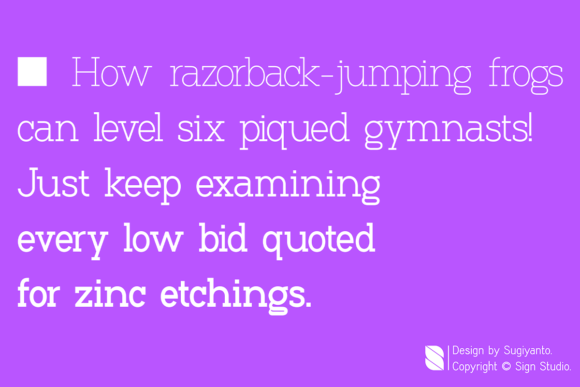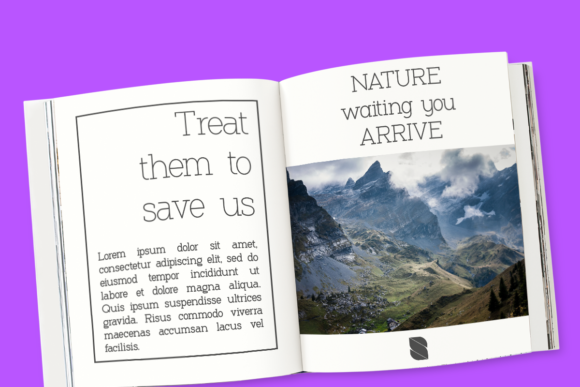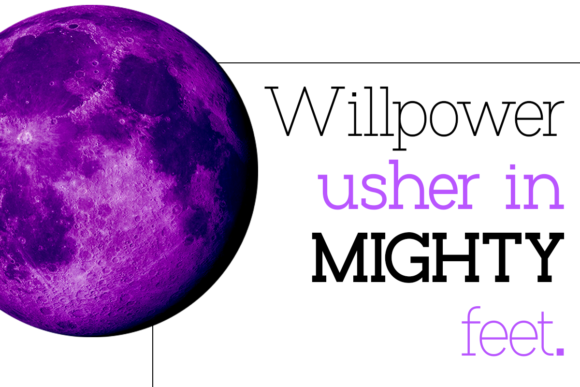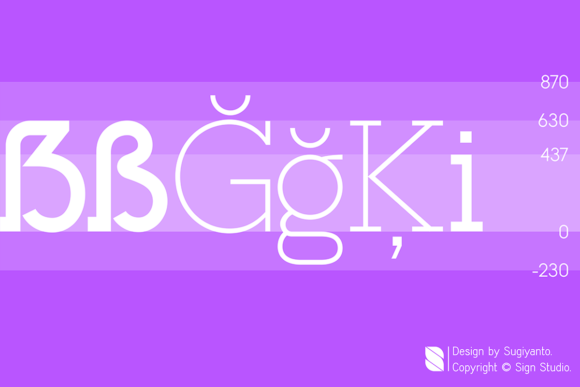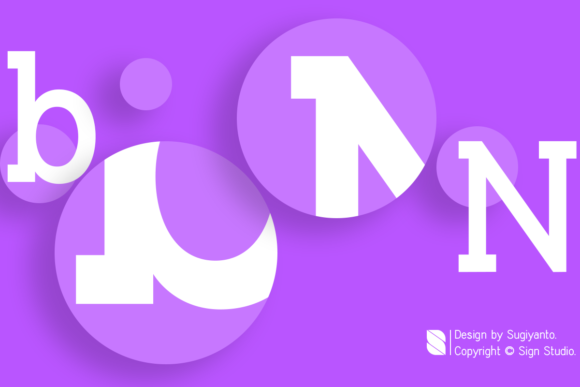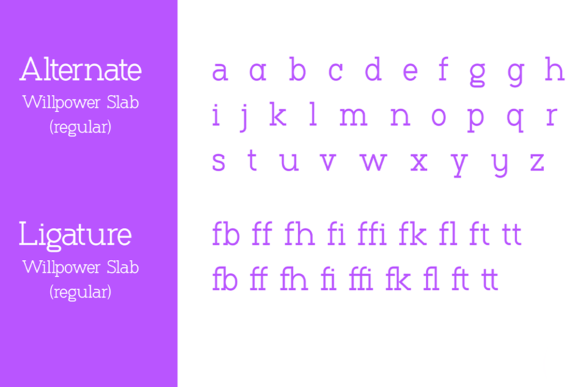
Willpower Font
WILLPOWER FONT SPECIMEN
Willpower is a slab serif type font made for neat and clean writing results. It is suitable for creating any branding, product packaging, invitation, quote, t-shirt, label, poster, logo that you wish to develop.